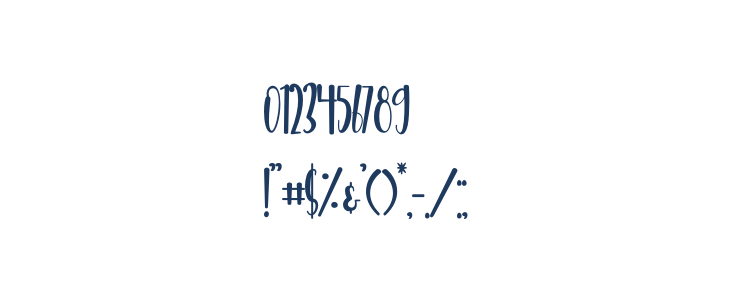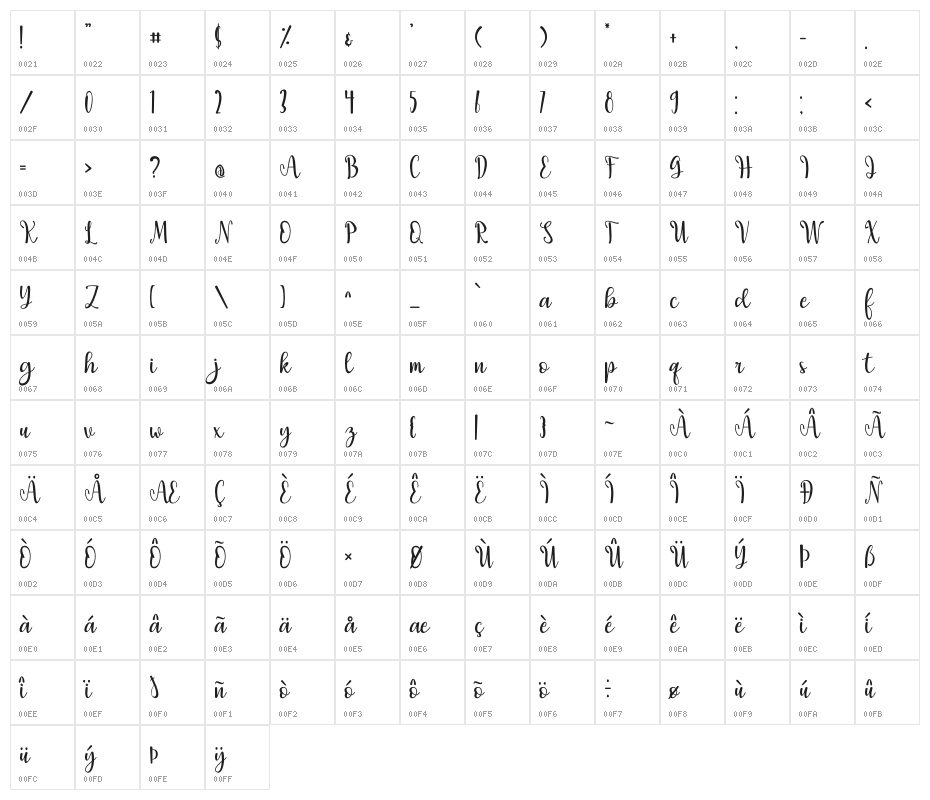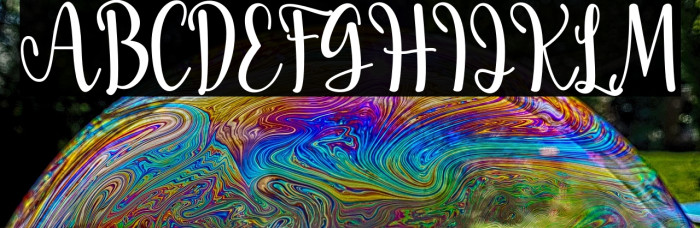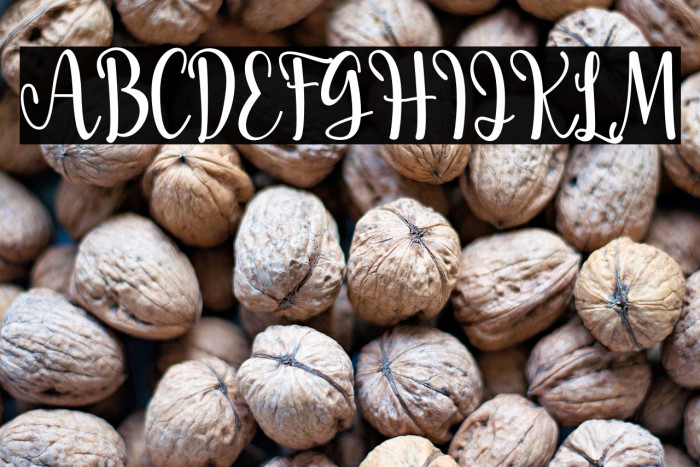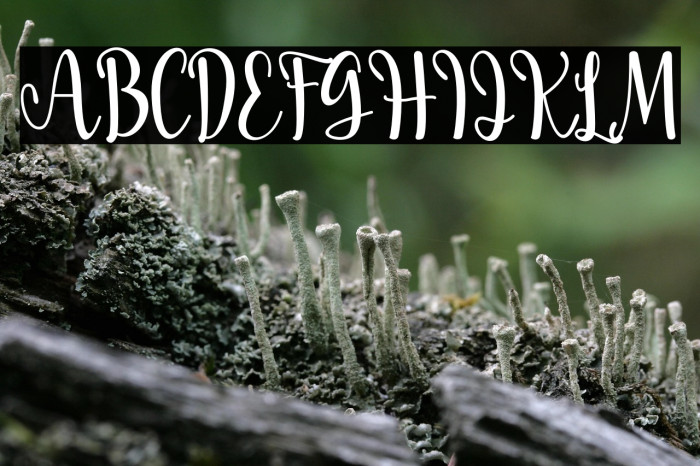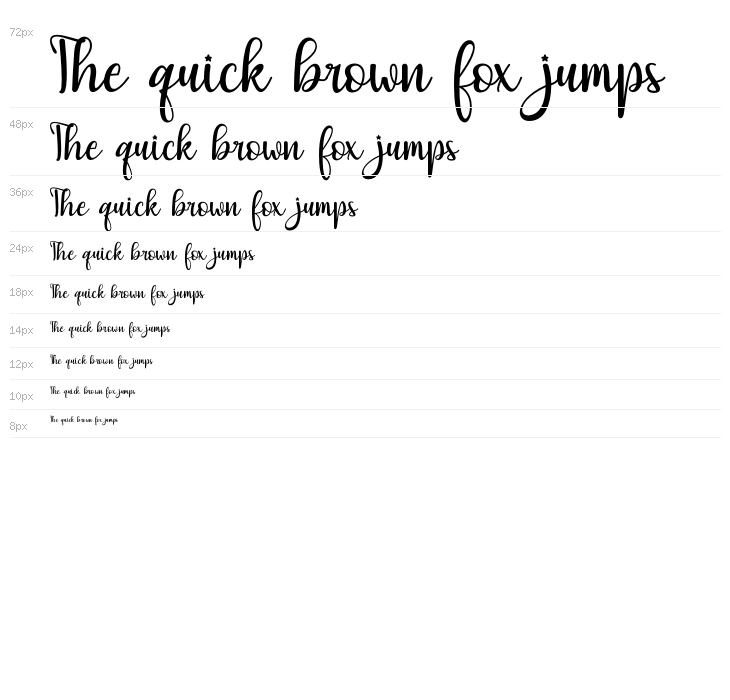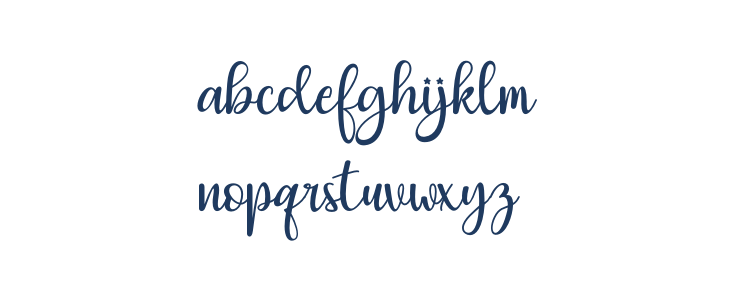
Sellomita Font
Sellomita Description
This font features a playful and elegant script style, characterized by its flowing, cursive letters that exude a sense of whimsy and charm. The uppercase letters are bold and slightly exaggerated, with unique loops and swirls that add a decorative flair. The lowercase letters maintain a consistent flow, with smooth connections and rounded forms that enhance readability. Numbers and special characters are designed to match the overall aesthetic, incorporating similar curves and embellishments. The font's lively and artistic nature makes it suitable for creative projects that require a touch of elegance and personality.